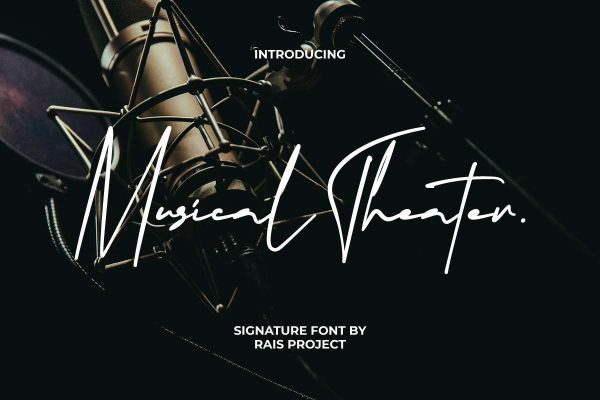
Musical Theater Font
Musical Theater Font is an authentic classy signature font. Try this font when you’re going to make a design with a classic concept. Your work will look charming instantly and amazing!
Musical Theater Font is an authentic classy signature font.This font will suitable for many industries, such as beauty product, event or wedding organizer, fashion, florist, homeware, jewelry, movie, music, photography, printing, publishing, writer, and more! You can also input any word you want so you can see what it will look like :